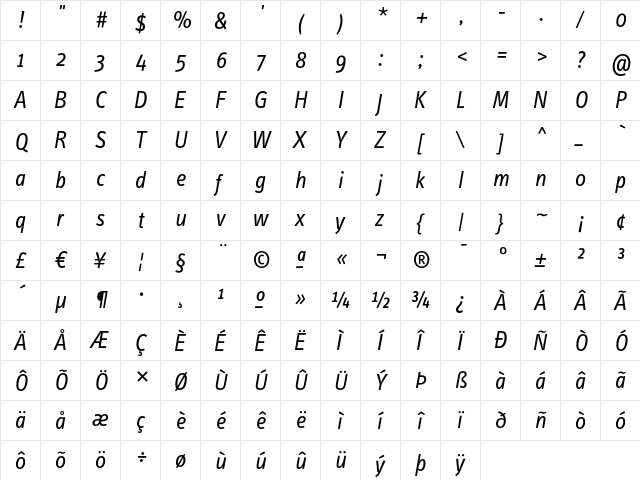
InfoTextRegular Italic
Design Context for InfoTextRegular Typeface
InfoTextRegular takes a measured approach to typography — its balanced proportions and neutral character make it a reliable workhorse for both digital and print work. The dynamic lean of this cut emphasises speed and emphasis in any layout.
Pro Tip: Use InfoTextRegular for emphasis, pull quotes, and subheadings where its slanted energy can add rhythm to the layout.